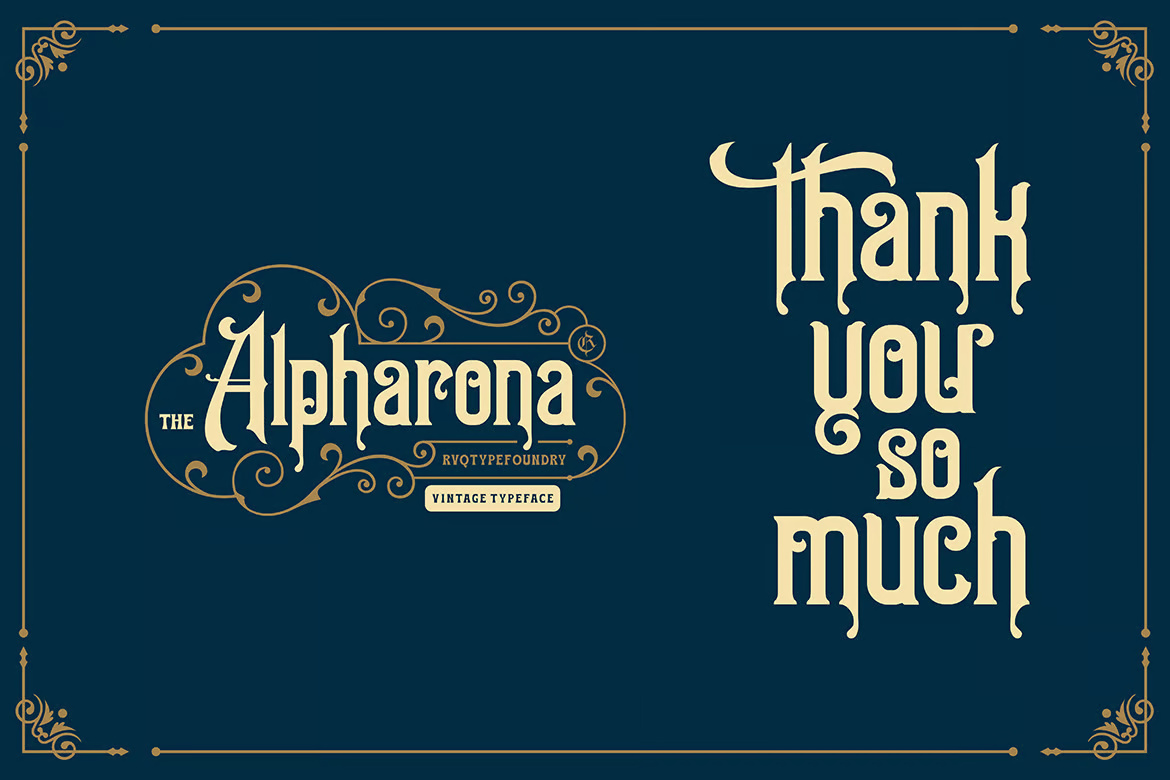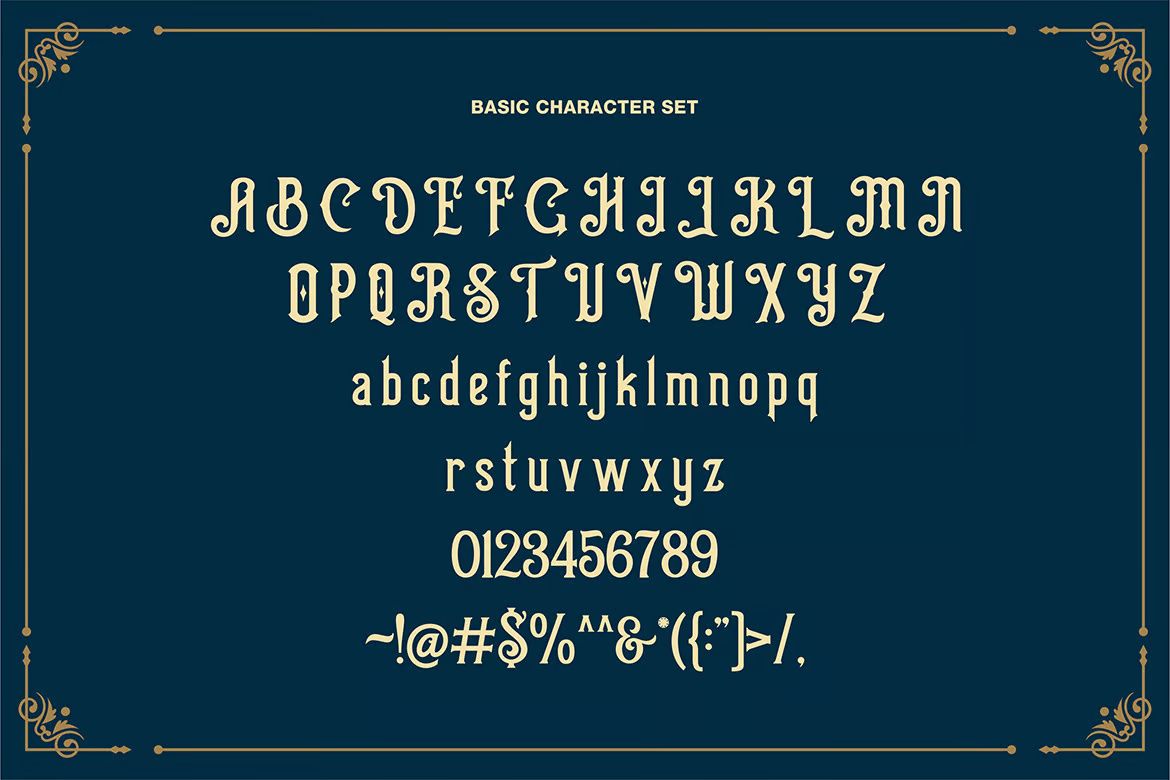
Alpharona Typeface
Alpharona is a vintage blackletter font. To create a beautiful combination, simply mix uppercase and lowercase letters along with the alternative glyphs. The Alpharona typeface includes a full set of capital and lowercase letters, multilingual support, currency figures, numerals, punctuation, and some extra glyphs.